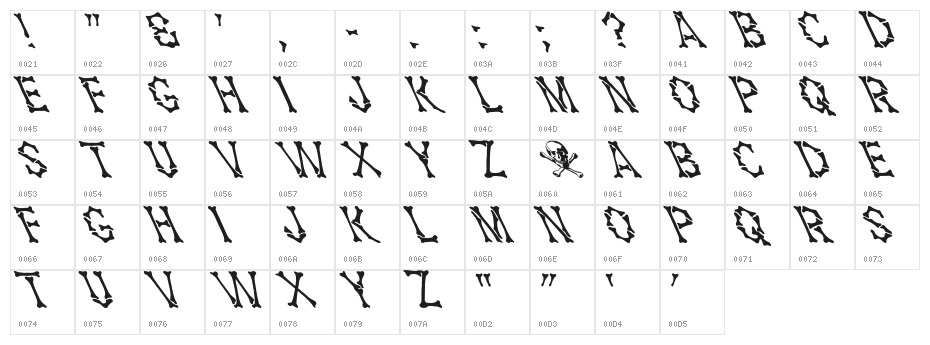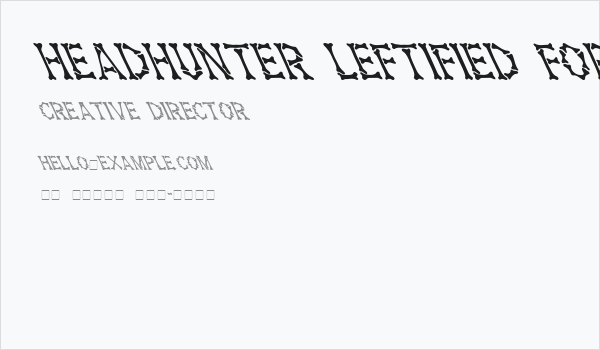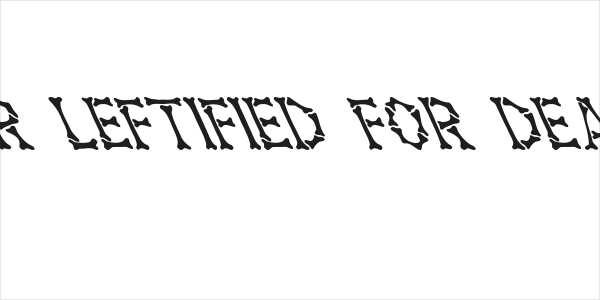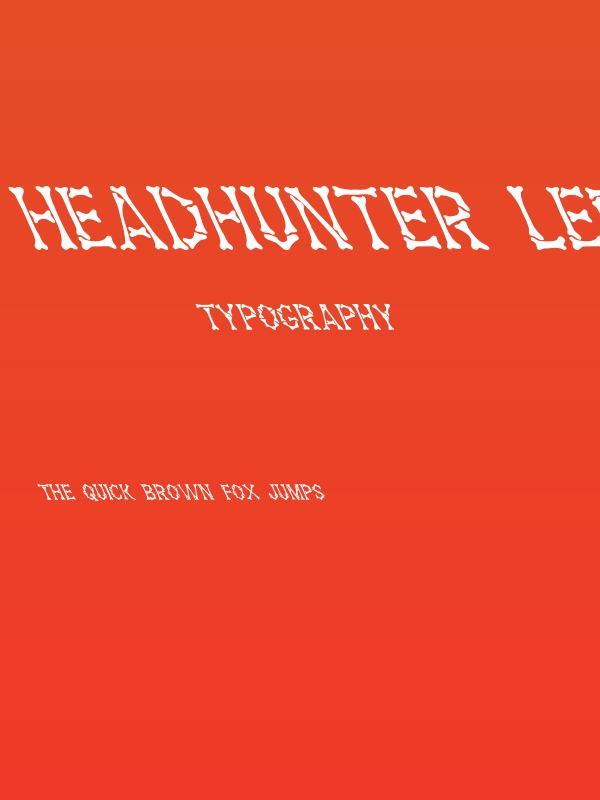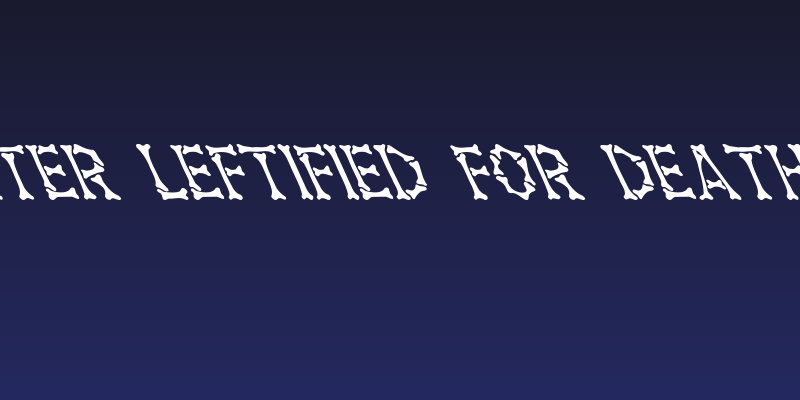
Headhunter Leftified For Death Medium Font
Headhunter Leftified For Death Medium Description
This font features a bold and edgy design, characterized by sharp, angular lines and a distressed appearance. The letters are slanted, giving a dynamic and aggressive feel, reminiscent of graffiti or urban art. The uppercase letters are particularly striking, with jagged edges and irregular shapes that create a sense of movement and energy. The font's unique style makes it stand out, making it suitable for projects that require a bold statement. The special characters maintain the same rugged aesthetic, ensuring consistency across all text elements.
| Overall Style | Modern, Urban |
| Proposed Projects | Ideal for use in music album covers, posters, streetwear branding, or any project needing a bold, urban edge. |